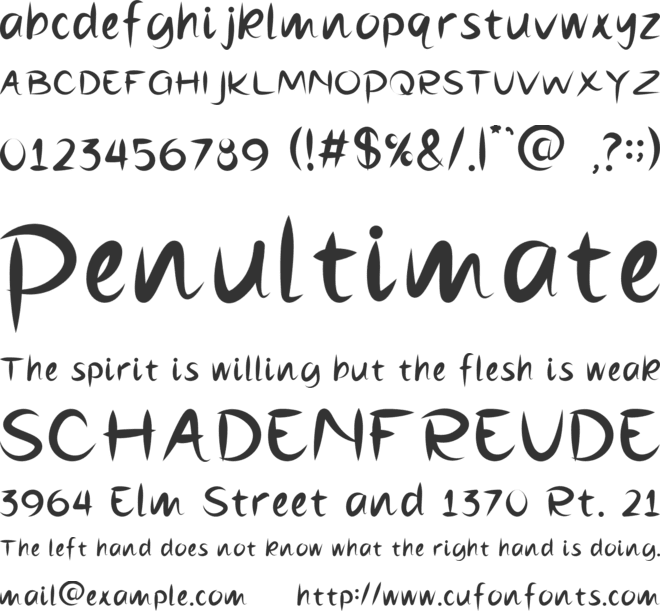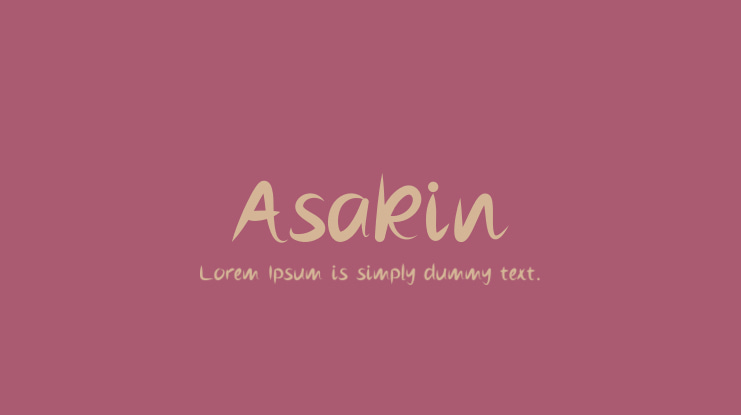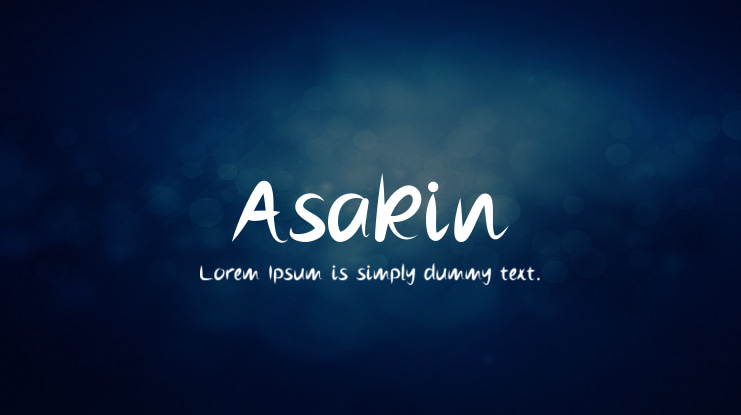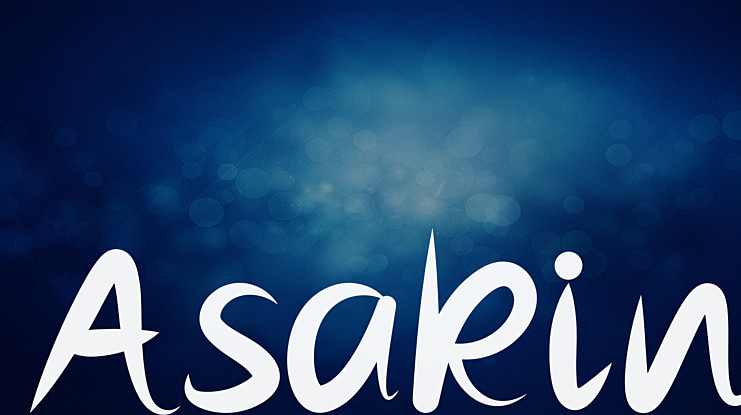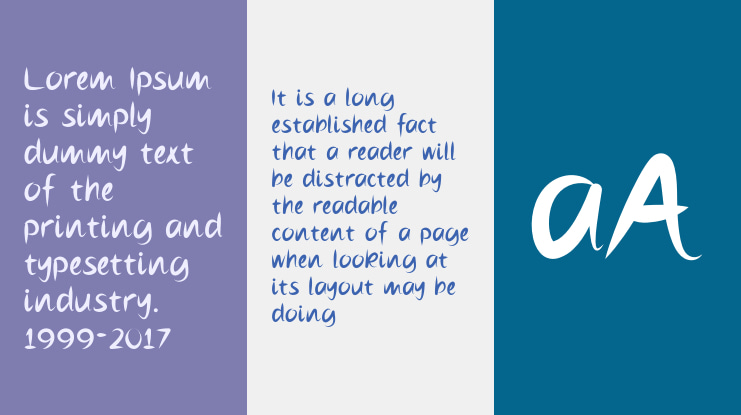
Asakin Font
Asakin is a sweet and well-rounded handwritten font. It has an authentic, modern look, and is the perfect choice for branding and digital designs. Use this font for your designs and explore its endless possibilities!